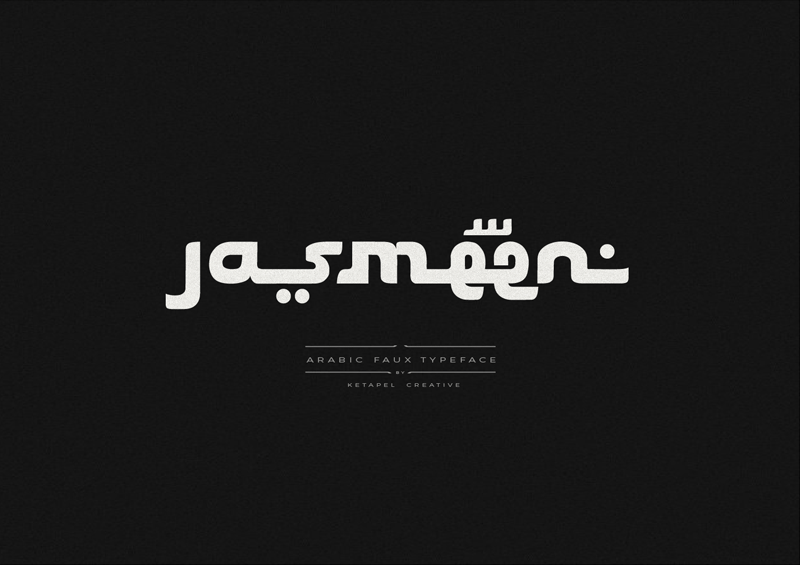
Jasmeen is an incredibly unique, arabic inspired display font. It is defined by smooth curves and is perfect for fashion branding or editorial designs. Add it confidently to your projects, and you will love the results. *This font is demo version free for personal use. Please visit https://www.creativefabrica.com/designer/ketapelcreative/ref/237095 to purchase commercial license and more other products. download & enjoy !! *Contact me : ketapelcreative@gmail.com Thanks for downloading this fonts. Best Regards |